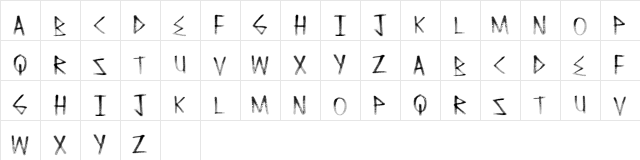
CleanFade Regular
Design Context for CleanFade Typeface
CleanFade is a composed and adaptable typeface that performs quietly and consistently across a wide range of design contexts.